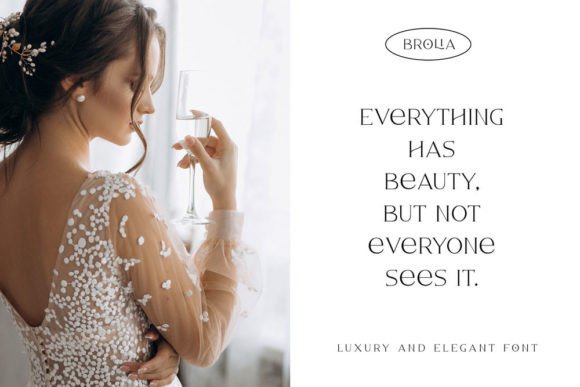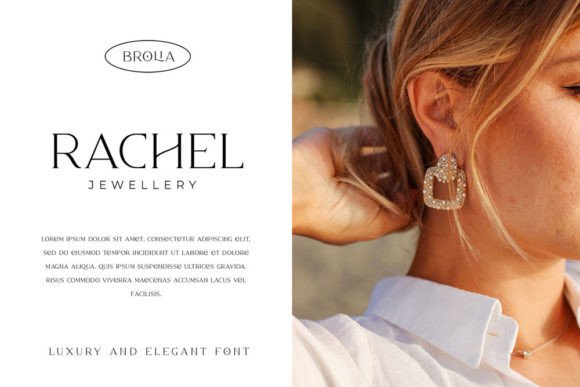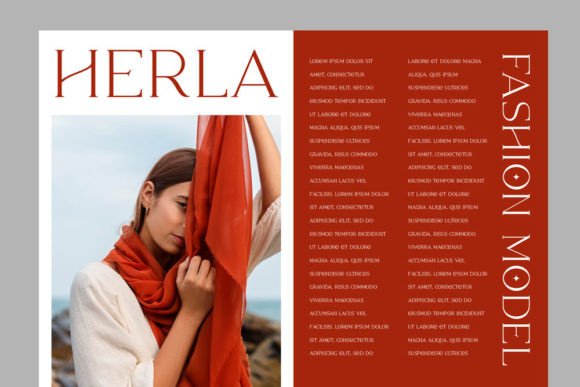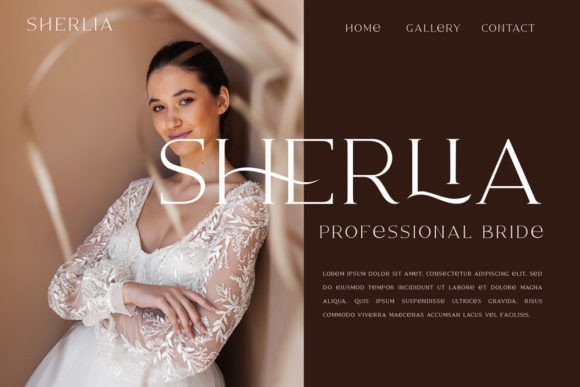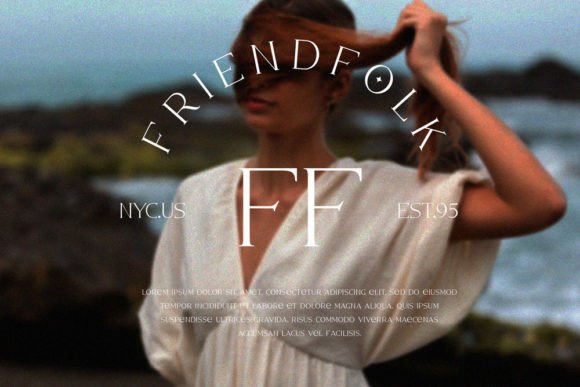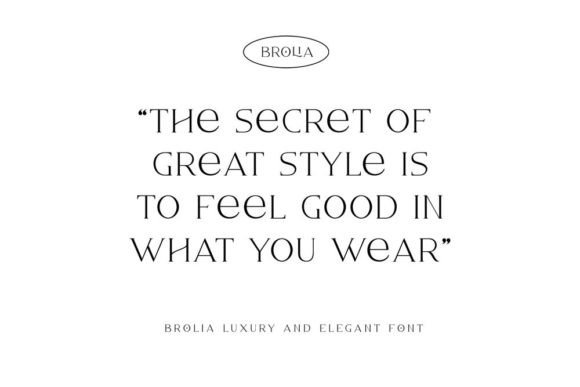
Brolia Font: Elevate Your Designs with Elegance and Luxury
In the world of typography, fonts play a crucial role in conveying the tone and personality of a design. For designers and crafters seeking to add a touch of sophistication and luxury to their projects, the Brolia font is an exceptional choice. This elegant serif font is designed to bring a sense of refinement and poise to any design, making it perfect for a wide range of creative endeavors.
The Essence of Brolia Font
Brolia is characterized by its classic serif structure, which exudes an air of tradition and timelessness. However, what sets it apart is its contemporary and fresh approach to traditional serif typography. The font strikes a perfect balance between classic elegance and modern sensibilities, making it versatile for various design applications. Whether you’re working on a branding project, a website design, or crafting beautiful print materials, Brolia can help you achieve that desired level of sophistication.
Key Features of Brolia Font
- Elegant Serif Design: Brolia’s serif design adds a touch of luxury and elegance to any text, making it stand out in a crowd.
- Contemporary and Fresh: Despite its classic roots, Brolia boasts a modern twist that keeps it relevant and appealing to contemporary design sensibilities.
- Versatility: From high-end branding to elegant website designs, and from fashion magazines to packaging, Brolia’s versatility knows no bounds.
- Easy to Read: The clear and readable nature of Brolia ensures that your message is conveyed effectively, without compromising on style.
Applications of Brolia Font
The applications of Brolia are vast and varied. Here are a few ways designers and crafters can utilize this beautiful font:
- Branding and Logotypes: Use Brolia to create a lasting impression with your brand’s logo or in your brand’s overall visual identity.
- Web Design: Enhance your website’s typography with Brolia, making your online presence more sophisticated and engaging.
- Print Materials: From luxury brochures and magazines to elegant business cards and stationery, Brolia can elevate your print designs.
- Packaging: Add a touch of luxury to your product packaging, making it more appealing to your target audience.
Why Choose Brolia Font?
In a sea of fonts, Brolia stands out for its unique blend of classic elegance and modern flair. Here are a few reasons why designers and crafters should consider Brolia for their next project:
- Unique Aesthetic: Brolia offers a distinct look that can set your designs apart from the competition.
- High Readability: Despite its elegant design, Brolia remains highly readable, making it practical for a wide range of applications.
- Support for Multiple Languages: Brolia often comes with support for multiple languages, making it a great choice for global brands and projects.
Brolia font is a powerful tool for designers and crafters looking to infuse their projects with elegance, luxury, and a contemporary edge. Its versatile nature, combined with its classic yet fresh design, makes it an excellent choice for a myriad of design applications. Whether you’re aiming to create a stunning brand identity, a captivating website, or simply want to add some sophistication to your print materials, Brolia is sure to exceed your expectations. Add Brolia to your typographic arsenal and watch your designs transform into outstanding works of art.